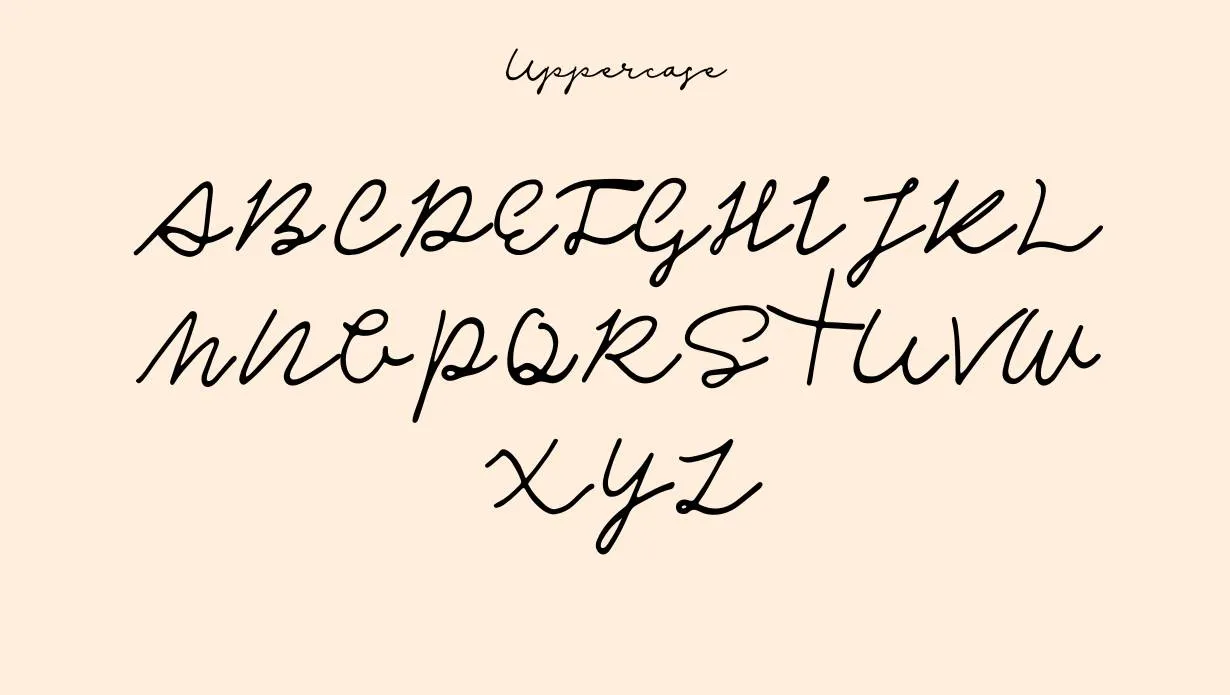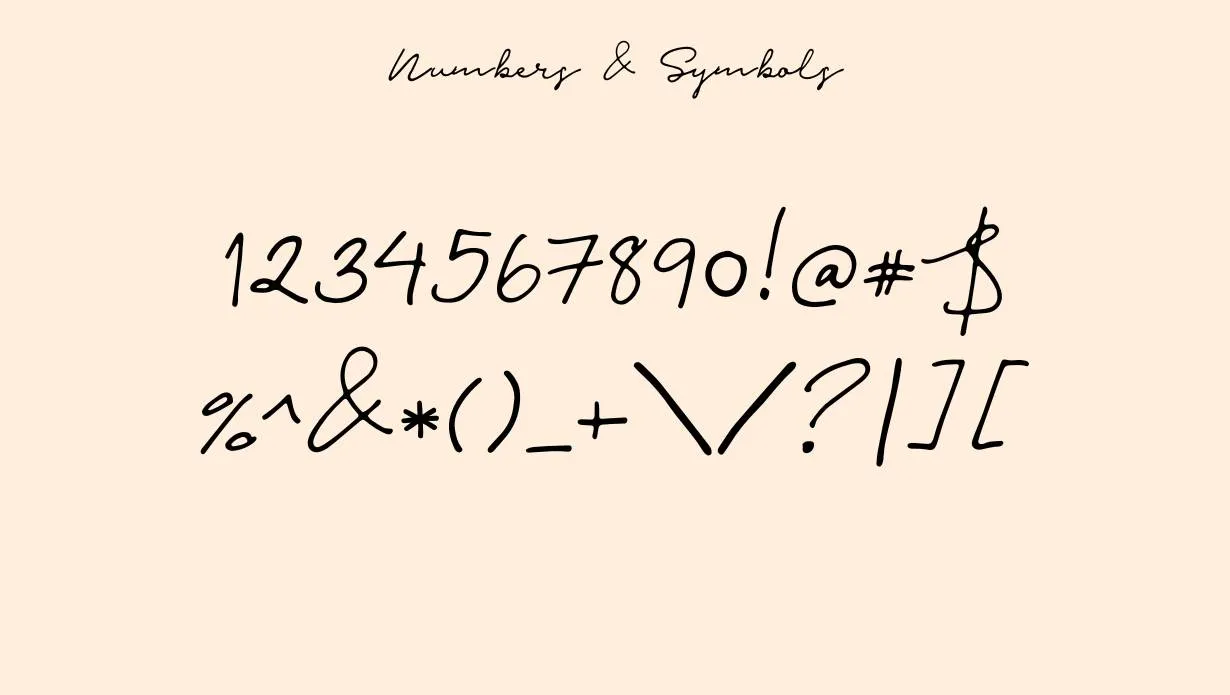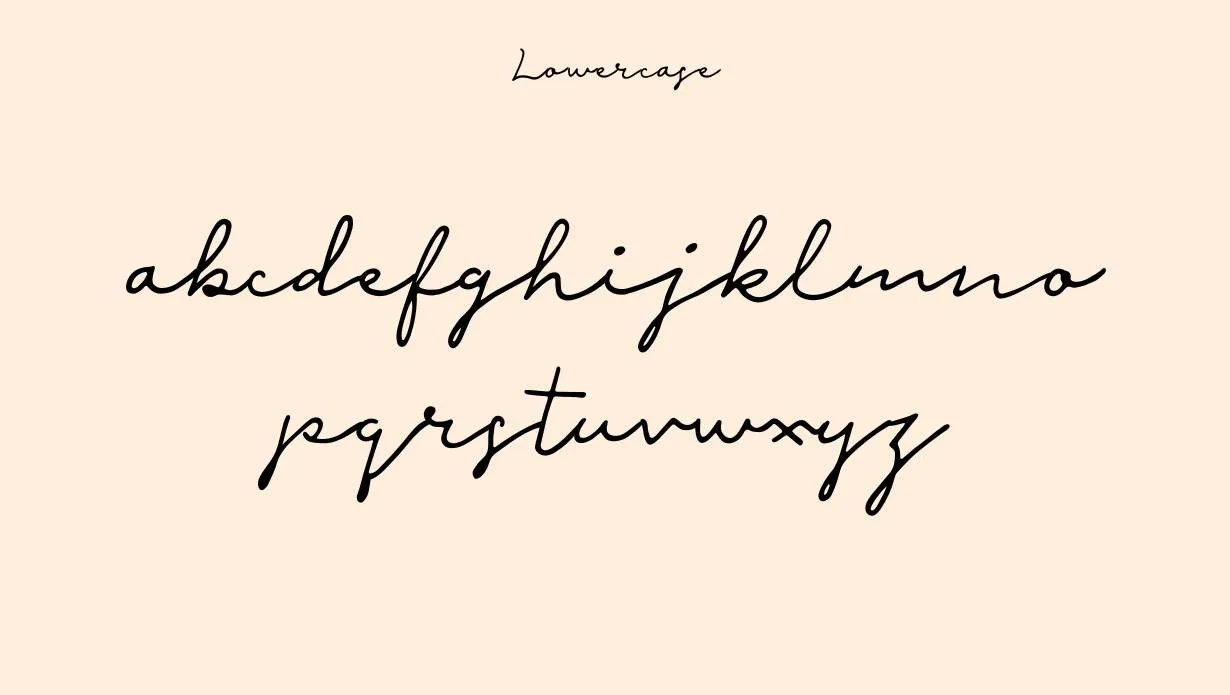
Malina Monoline Font offers a clean and contemporary design with a monolinear appearance. It’s suitable for various design applications, from branding to web design, where a modern and well-organized look is desired.
| Name | Malina Monoline Font |
| Designer | Thanarat Vachiruckul |